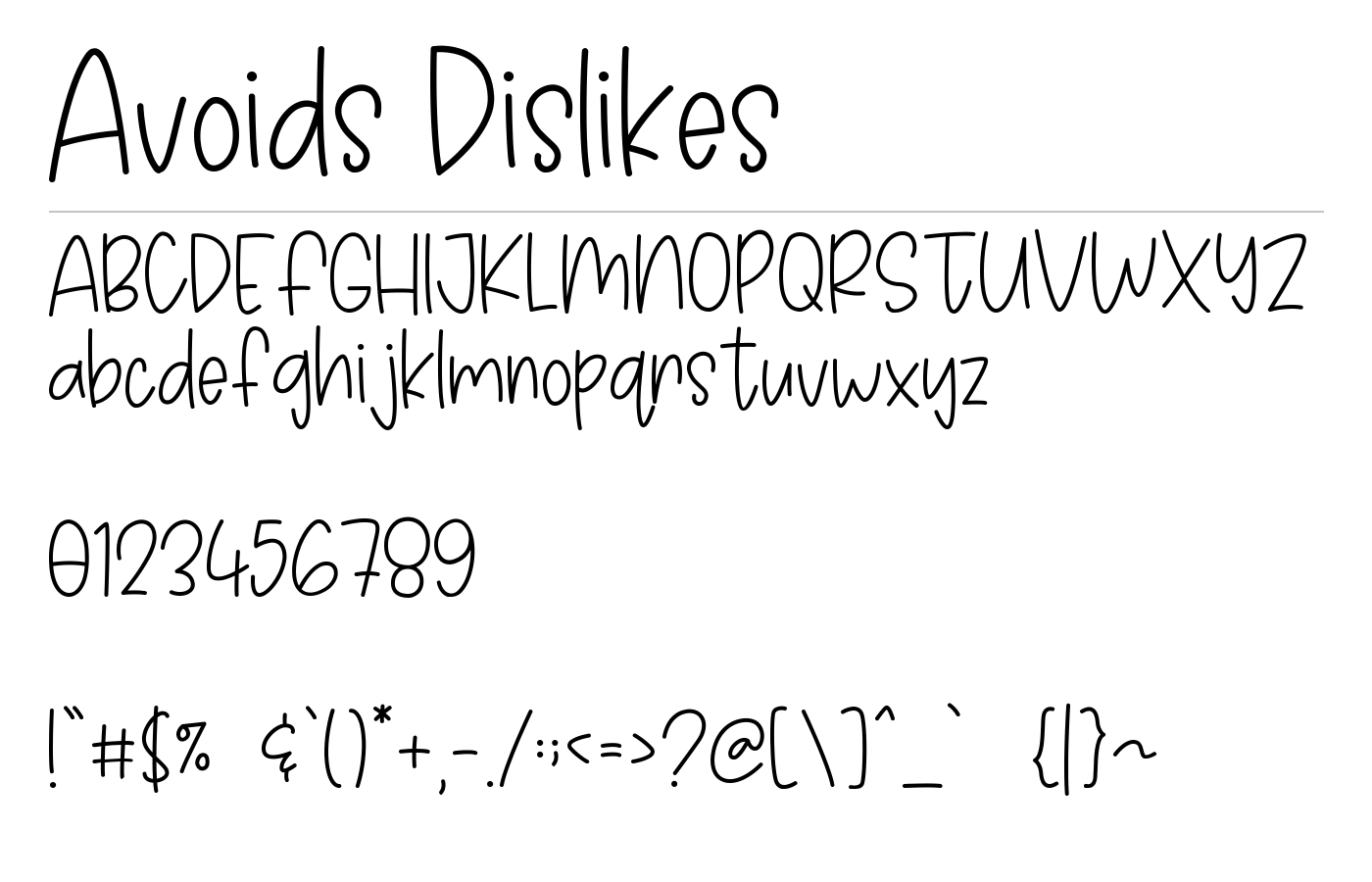
Avoids Dislikes is a playful and casual handwritten sans serif font with a tall, narrow structure and lightly uneven strokes that give it a friendly, informal feel. Its slender letterforms and simple, slightly quirky shapes make it perfect for fun, approachable designs like children's books, casual branding, or creative headlines where a personal touch is desired. This font works best in contexts that seek an inviting and relaxed vibe, adding charm without sacrificing readability.
Avoids Dislikes Font
About Avoids Dislikes Font
| Font family | Avoids Dislikes Font |
| Designer | Muammar Khalid |